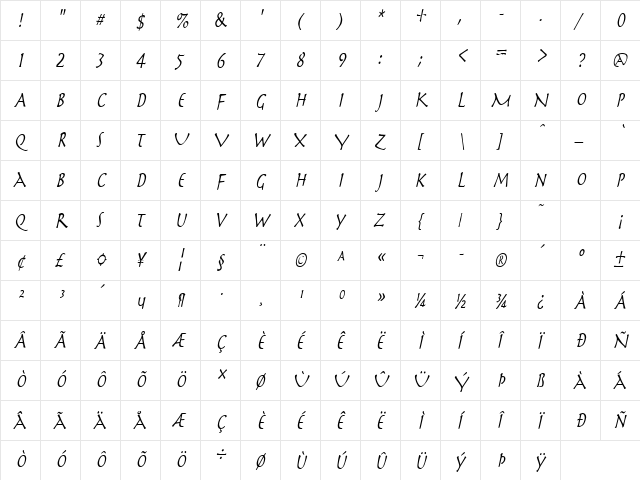
Mythology Thin Italic Font Preview
Design Context for Mythology Thin Typeface
Mythology Thin takes a measured approach to typography — its balanced proportions and neutral character make it a reliable workhorse for both digital and print work. The dynamic lean of this cut emphasises speed and emphasis in any layout. Its slender proportions lend an understated elegance to any composition.